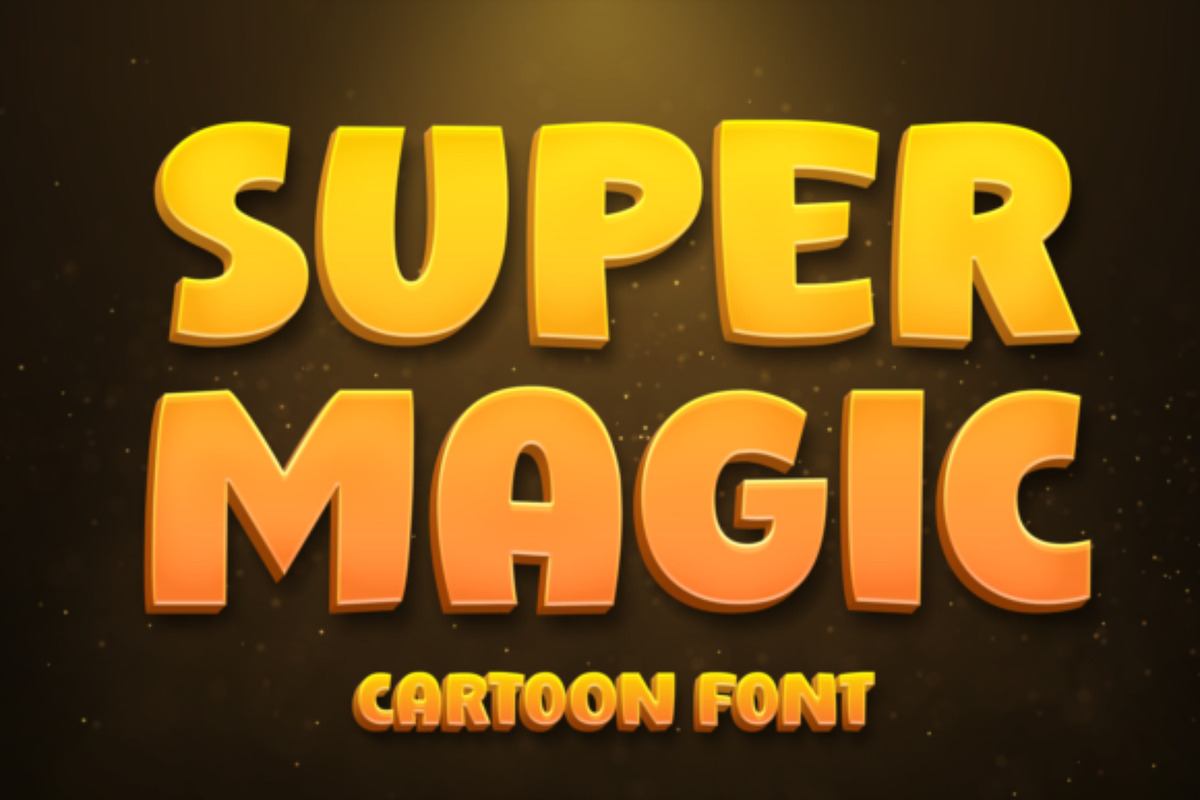
Super Magic Cartoon Font Free Download
Please note, to use this font for commercial purposes, you must purchase the full version. Super Magic Cartoon is a fun and playful font designed to bring a touch of whimsy and excitement to your designs. With its bold, bubbly letterforms and cartoon-inspired style, this font is perfect for children's projects, comic book designs, logos, posters, and more. Whether you're designing for a kid-friendly brand, an animated event, or a fun promotional campaign, Super Magic Cartoon adds a creative and lively feel to your work. Test it out and enjoy free download access for personal use. Experience the playful energy of Super Magic Cartoon Font Free Download before purchasing the commercial license. Add a magical, cartoonish touch to your designs with Super Magic.